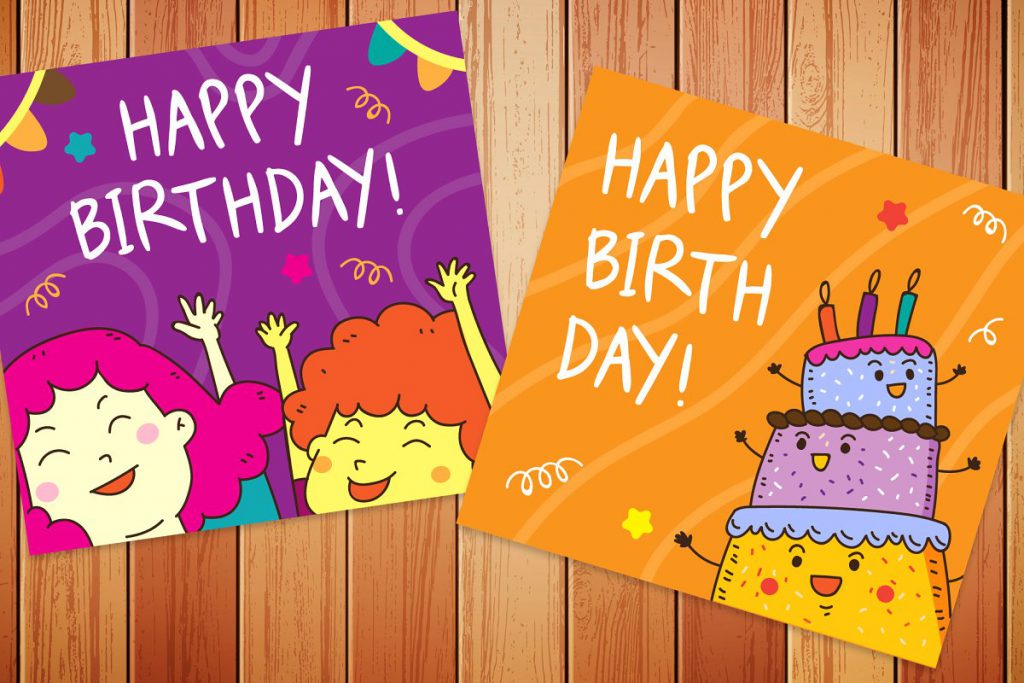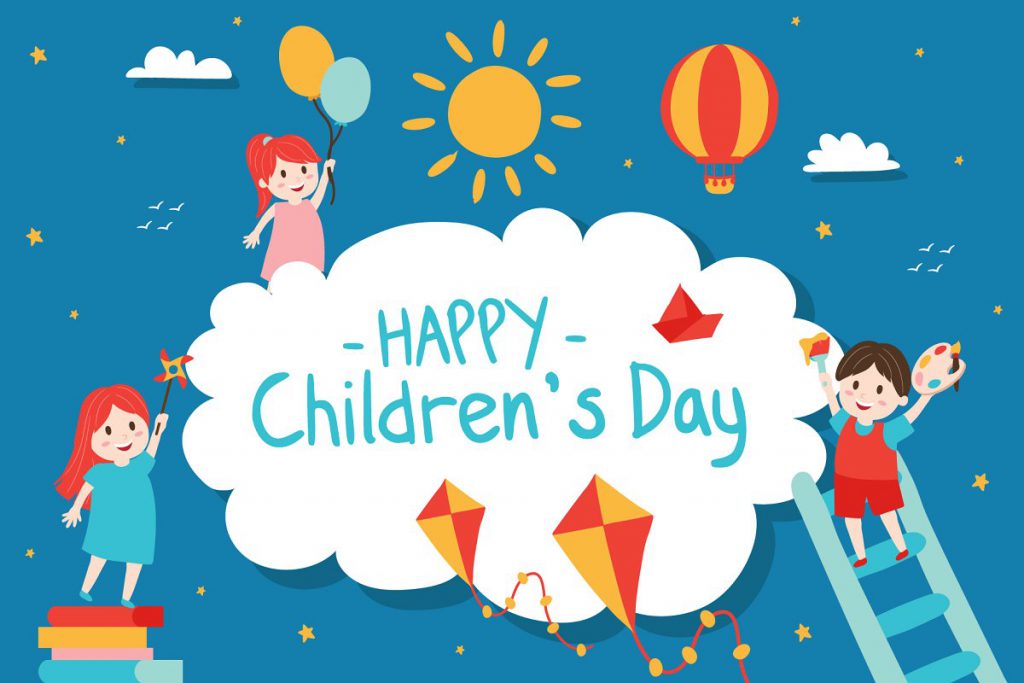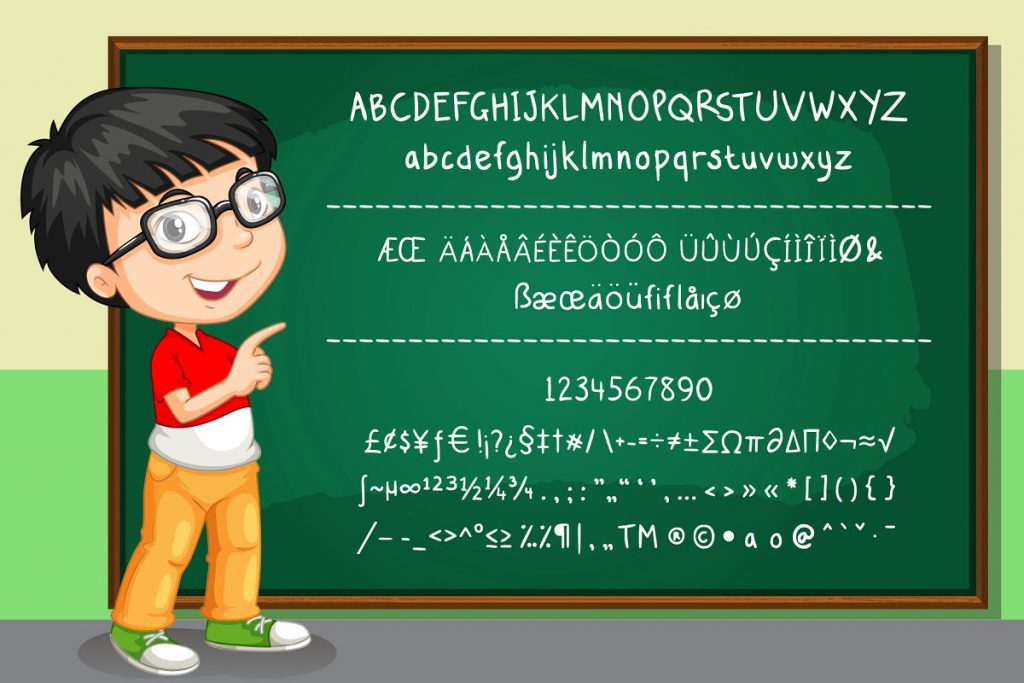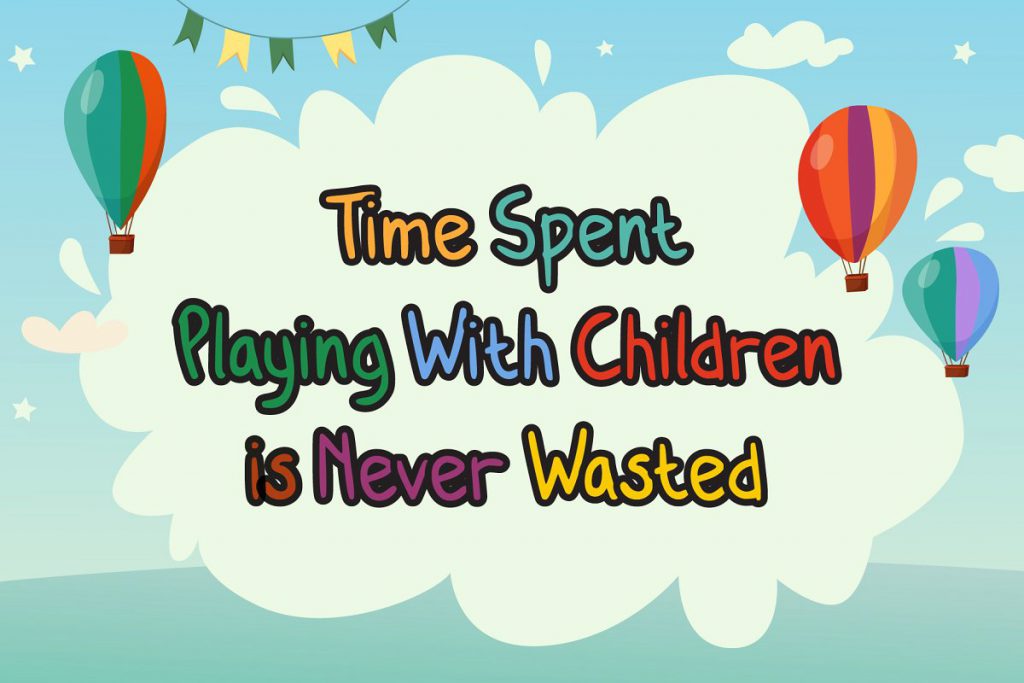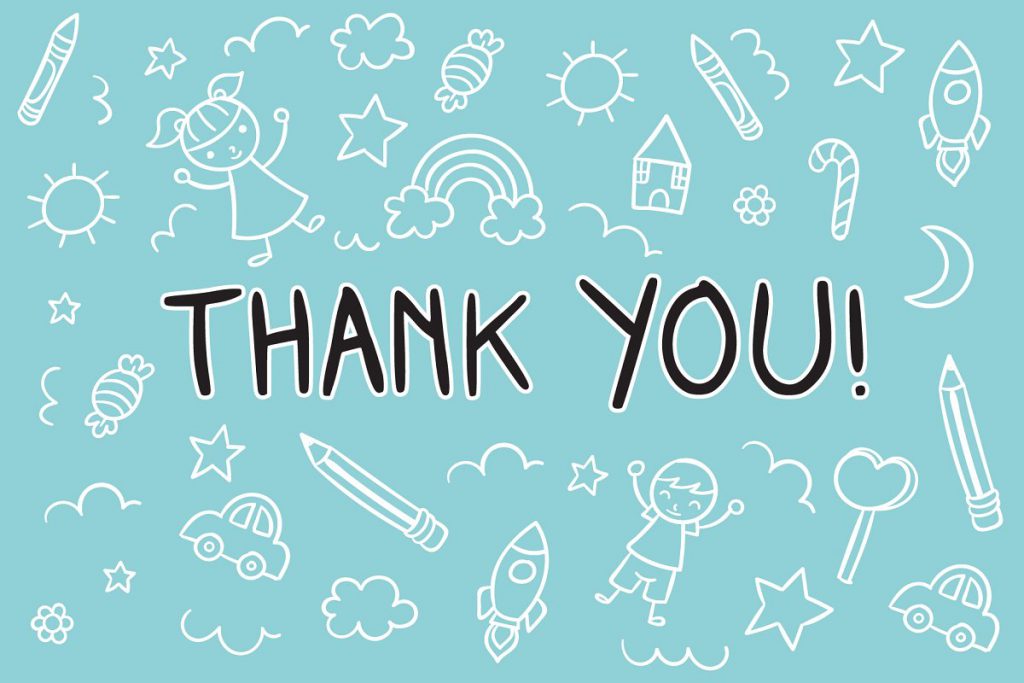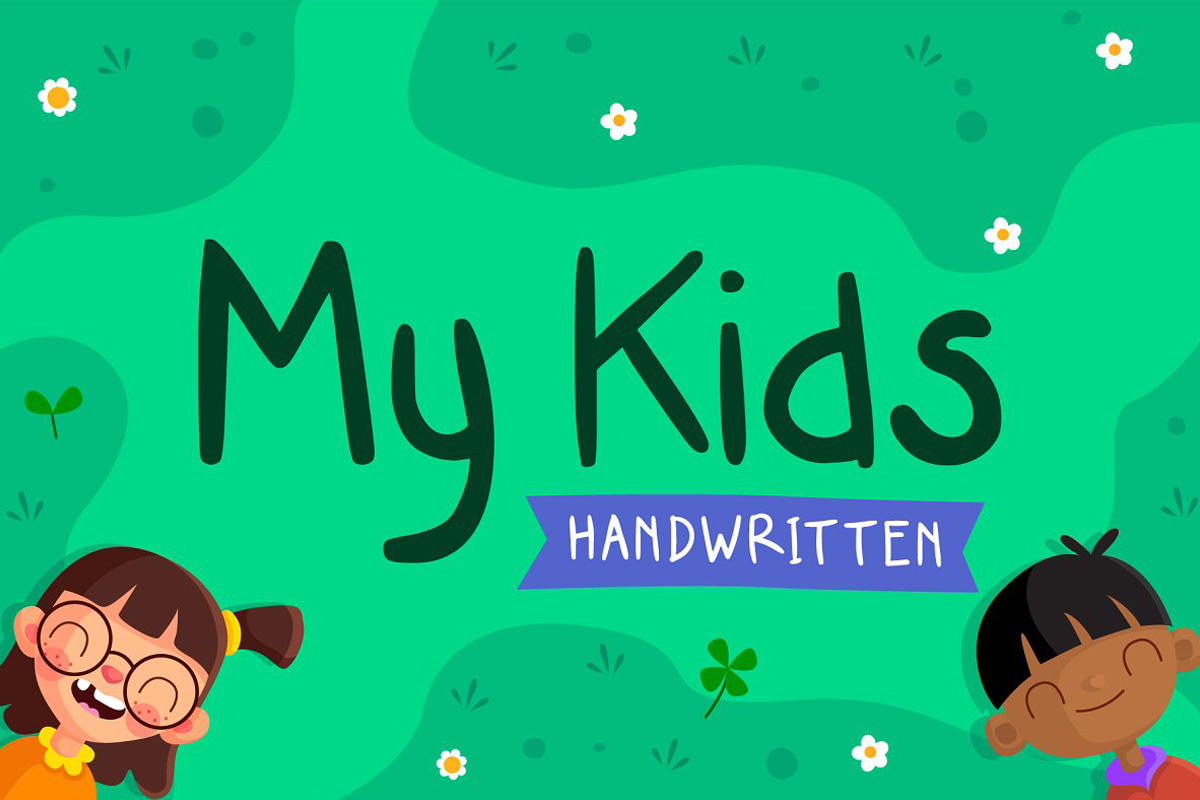
Tosca Digital is here again with an amazing freebie which is My Kids Handwritten Font. It is a playful font that is suitable for kids’ content. This free font is very friendly looking that you can use and install on your devices as well. However, it comes with a personal use license, but if you want to get more licenses to use it on commercial projects, make sure you make a purchase first.